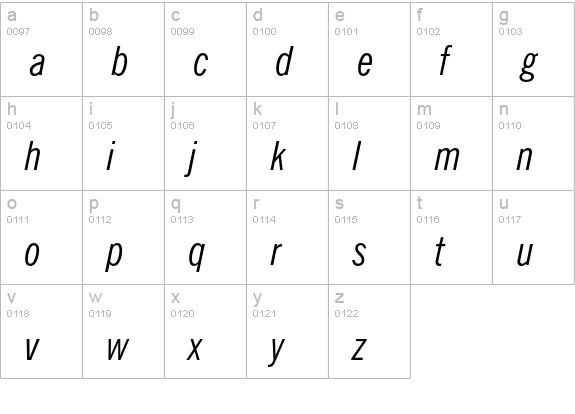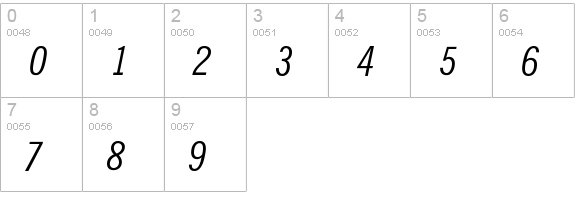
News Gothic Condensed Italic Font Details
News Gothic Condensed Italic is a distinctive, condensed-width, italic variant in the News typeface family \xE2\x80\x94 well suited to design and typography projects.
News Gothic Condensed Italic is a sleek and modern font designed for maximum impact in headlines, titles, and other display settings. Its condensed form gives it a sense of urgency and efficiency, making it ideal for conveying important information in a clear and concise manner. The italic style adds a touch of elegance and dynamism to the text, making it stand out on the page. What's even better is that News Gothic Condensed Italic is available for free download at FontsMarket.com, allowing you to add this stylish and versatile font to your design projects without any cost. Whether you're working on a website, brochure, poster, or any other design project, News Gothic Condensed Italic is sure to make a bold statement and grab the attention of your audience. Download it now and elevate your typography game with this stunning and impactful font.